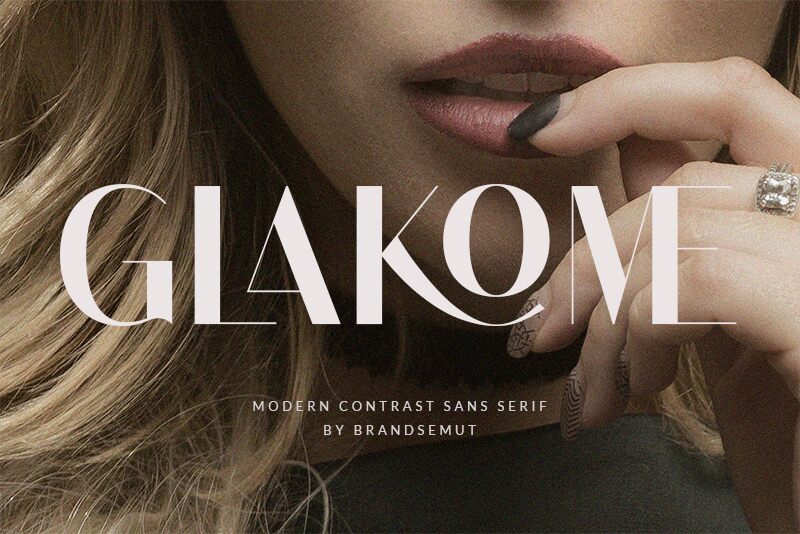
Glakome, designed by BrandSemut, is a modern sans serif font that exudes a stylish and contemporary vibe.
With its sleek lines and contrasting elements, Glakome is perfect for a wide range of projects. Its versatility makes it suitable for both digital and print media, including website design, branding materials, editorial layouts, and product packaging.
Whether you're creating a minimalist logo or designing an eye-catching poster, Glakome's clean yet impactful aesthetic will elevate your project to new heights.